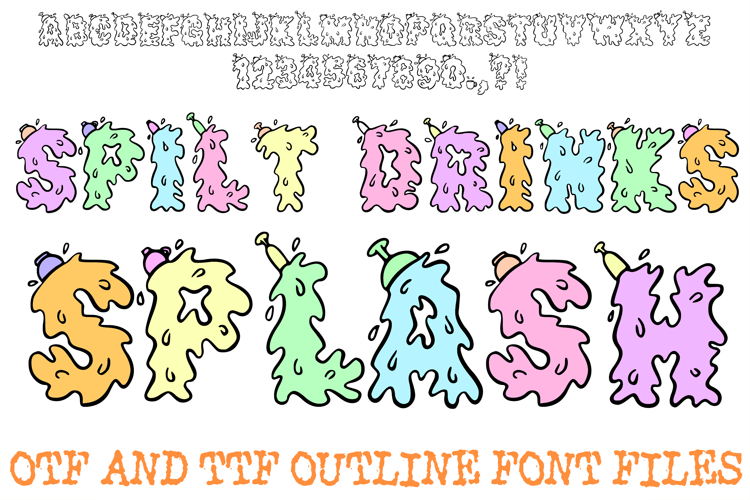
Spilt Drinks Splash Font Liquid Lettering ABC OTF Hand Drawn
The Spilt Drinks Splash Font is a playful and highly creative display typeface that perfectly captures the messy, whimsical look of liquid accidents. Each character is uniquely illustrated as a splat or puddle of liquid, complete with tiny droplets and charming "tipped" accessory icons like small mugs and bottles integrated into the design. It is the ideal choice for kitchen-themed decor, humorous children's apparel, dairy or juice branding, and any creative project that needs a fun, "oops" inspired aesthetic.
Detailed Liquid Illustration: Every letter and number is meticulously drawn to look like a thick, splashing liquid spill, providing a unique hand-drawn texture to your text.
Playful Accessory Accents: Small icons like tipped cups and spilling bottles are scattered throughout the alphabet to reinforce the "spilt drink" theme.
Bold Cartoon Silhouette: The thick, bubbly outlines ensure your headlines are eye-catching and maintain readability despite the intricate "splash" details.